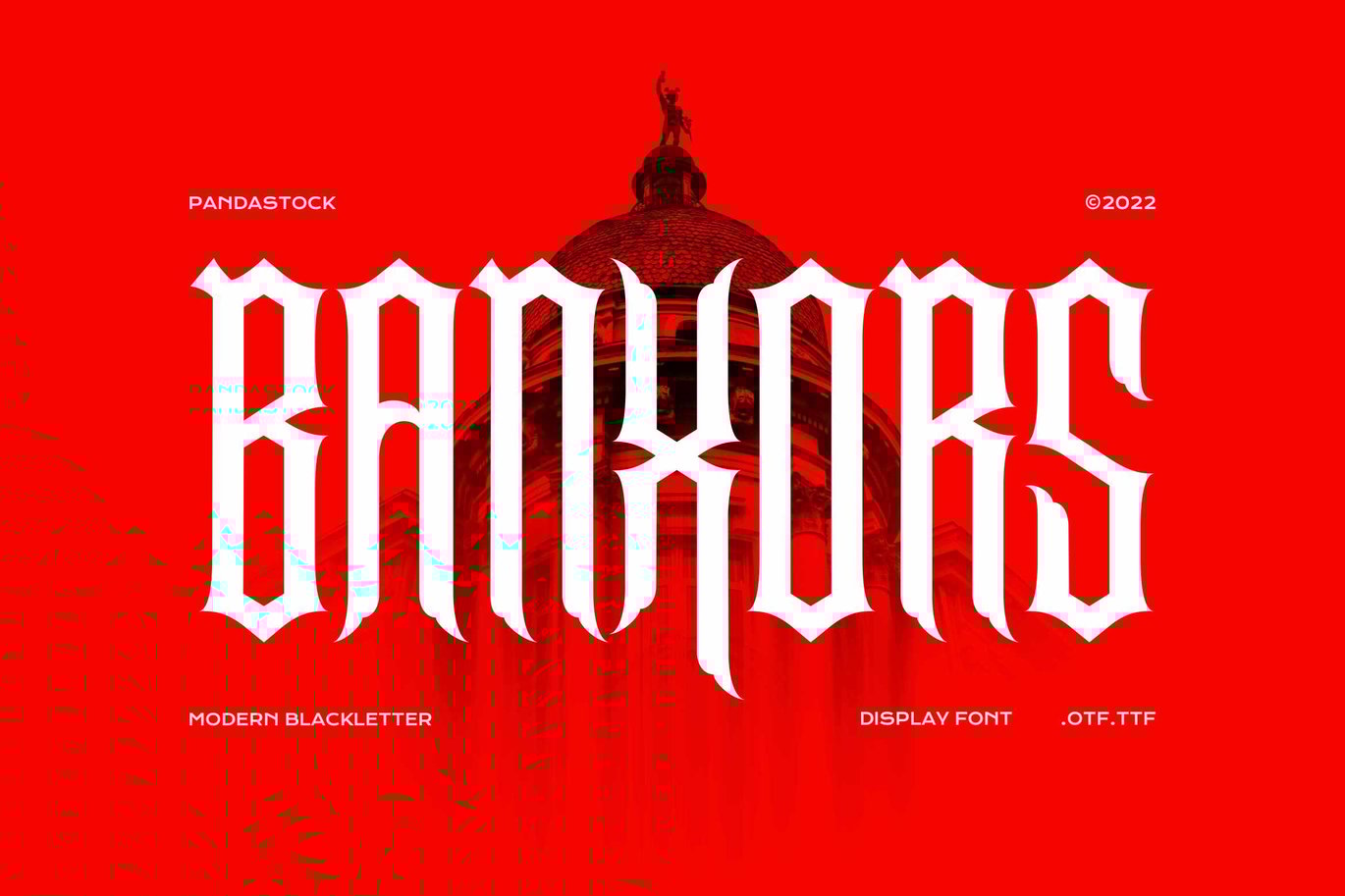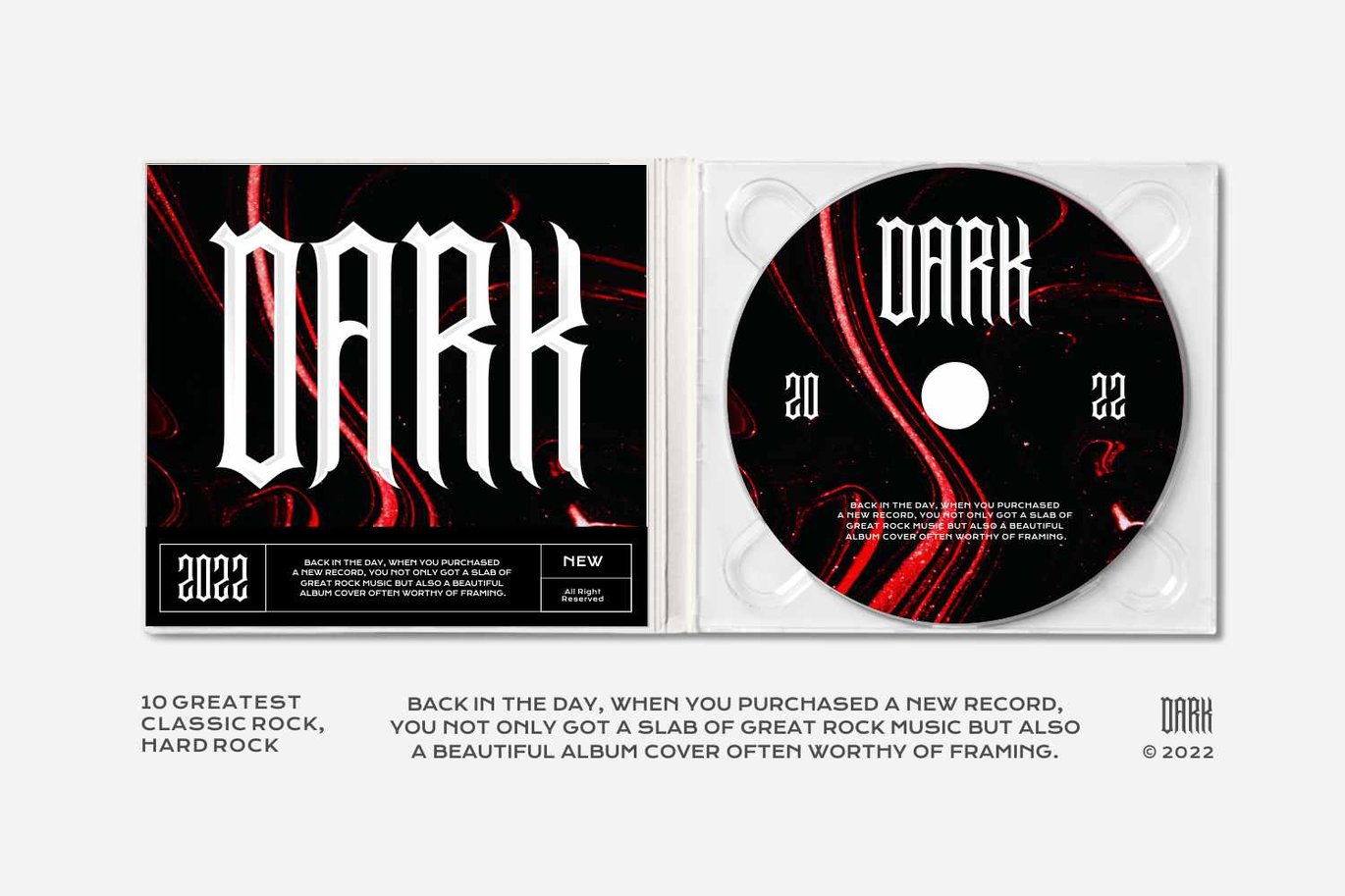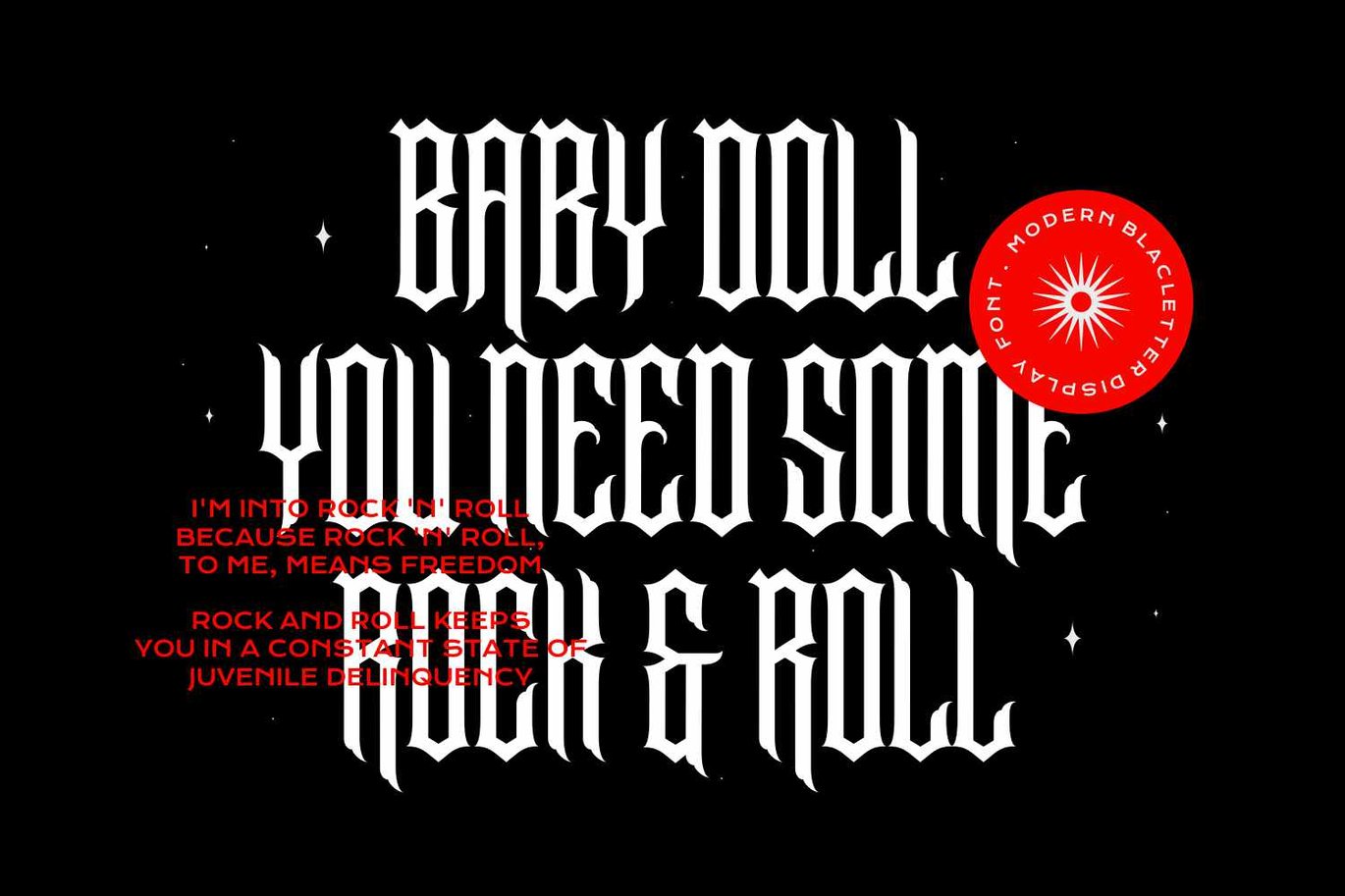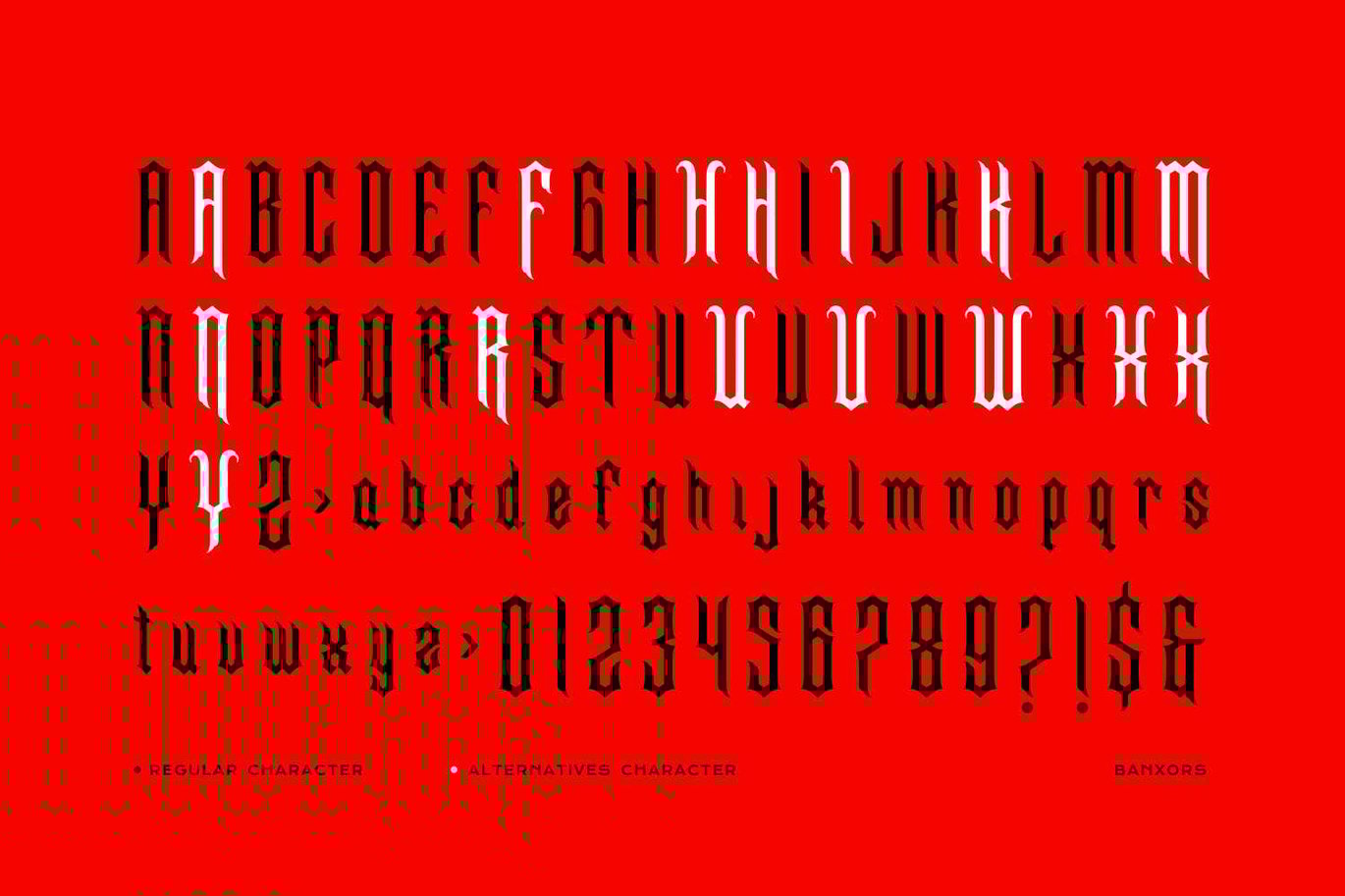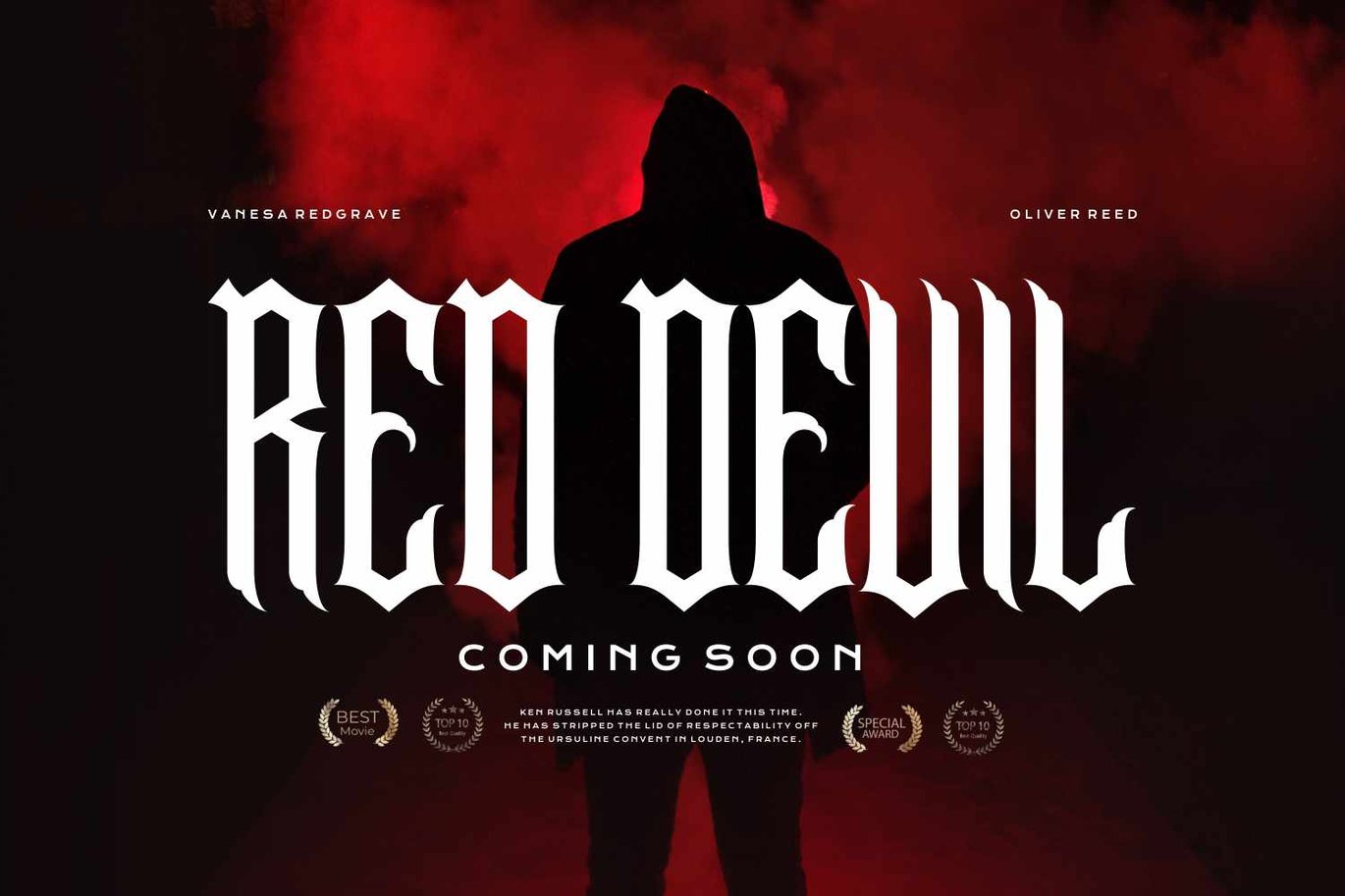
Banxors – Black Metal Font
Banxors black metal font is a bold and menacing typeface inspired by the dark and intense aesthetic of the death metal music genre. With sharp, angular letterforms and jagged edges, this font exudes an aura of aggression and power. Each character is meticulously crafted to convey a sense of brutality and raw energy, making it perfect for album covers, posters, and other designs seeking to evoke the intense atmosphere of the death metal scene.